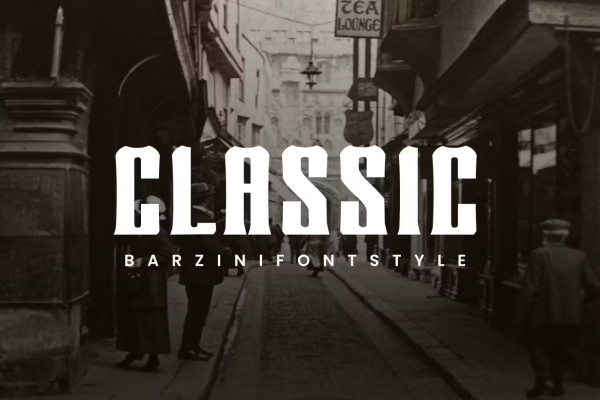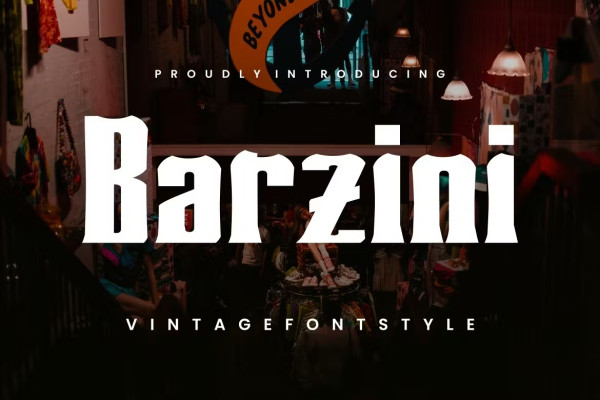
Barzini Font
Barzini Font, a simple and vintage font. So perfect for you who needs a typeface for logo designs, magazine, social media, brochure, and many more.